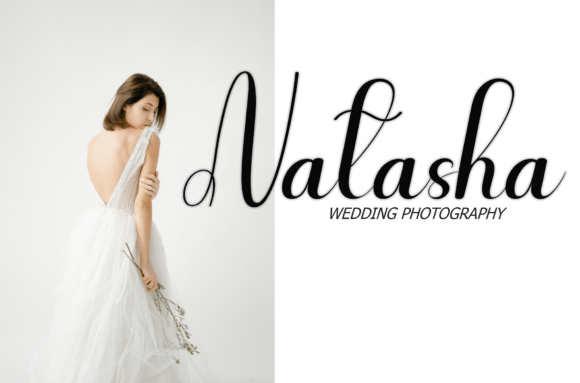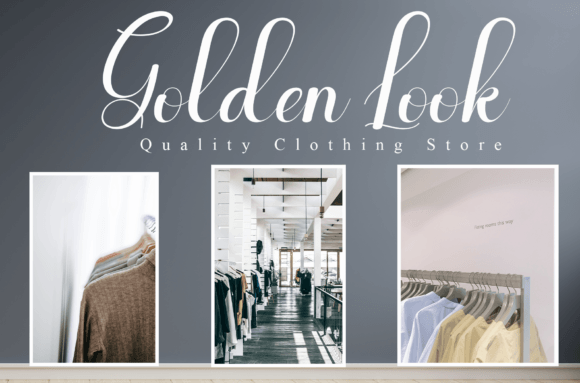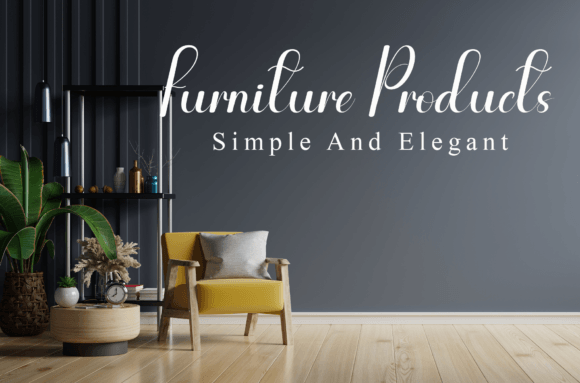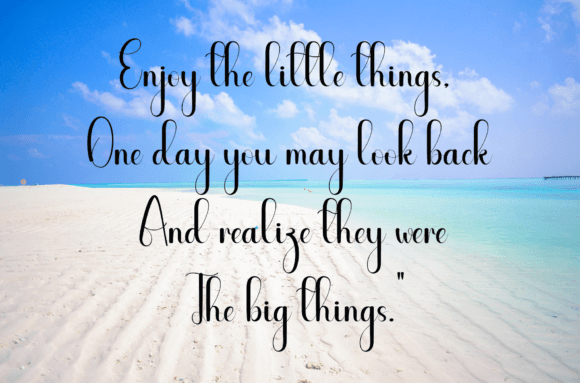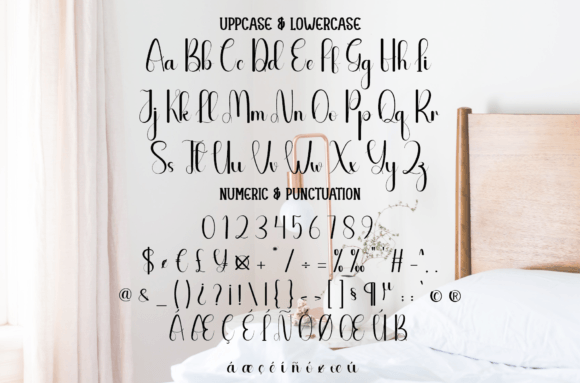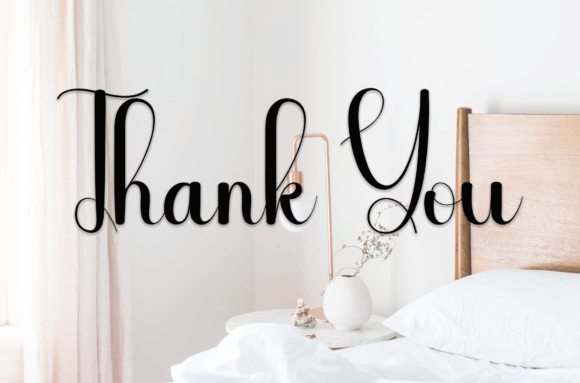
The Perfect Touch for Your Design
Remember that moment when you finally find the perfect font to match your design’s personality? It’s like stumbling upon a hidden treasure that makes everything fall into place. For designers, that ‘aha’ moment is a game-changer. It’s what sets a project apart and leaves a lasting impression on the viewer.
One such treasure is the Bedset Font, a sweet and friendly handwritten font that adds a fun touch to any design. Whether it’s a wedding invitation, a birthday card, or a social media post, this font is sure to bring a smile to the viewer’s face. Its fresh and neat design makes it an ideal choice for designers looking to add a personal touch to their work.
Key Features of Bedset Font
- Font Family: Bedset Font is a unique, hand-drawn font family designed for use in various design projects.
- Unique Characteristics: Features a mix of modern and vintage elements, with intricate details and subtle texture, giving it a distinctive look and feel.
- Font Style: Offers a range of styles, including regular, bold, italic, and bold italic, providing flexibility for designers to create visually appealing typography.
Bedset Font Review
Overall, I think Bedset Font is a solid addition to any design library. ✨ The font’s playful and cursive style makes it perfect for titles, headings, and any other text that needs a touch of whimsy.
One of the things I appreciate about Bedset Font is its versatility. It comes in a range of weights, from light to bold, which makes it easy to use in different contexts. Additionally, the font has a clean and modern aesthetic, which makes it suitable for a variety of design projects.
However, there are a few limitations to keep in mind. ⚠️ Firstly, the font may not be suitable for body text, as it can be difficult to read at smaller sizes. Additionally, some of the characters may not render properly in certain environments.
Some potential issues with the font include:
- May not be suitable for body text
- Some characters may not render properly
- Can be difficult to read at smaller sizes
Overall, I would recommend Bedset Font for designers who want to add a touch of personality to their projects. With its playful style and versatile range of weights, it’s a great addition to any design library.
The Bedset Font is ideal for creating unique and eye-catching designs. Some common use cases include:
- Creatives and designers looking for a distinctive font.
- Brands seeking to establish a unique visual identity.
- Designers working on projects that require a playful and whimsical touch.